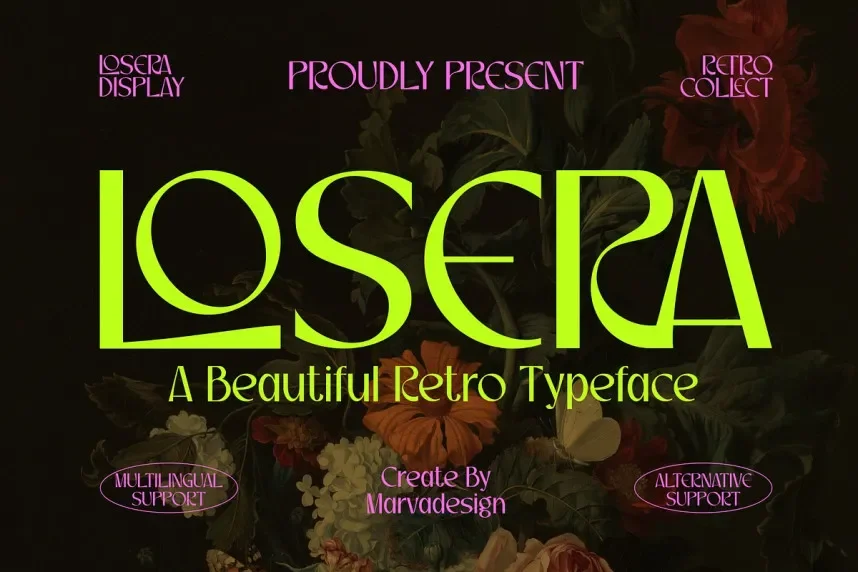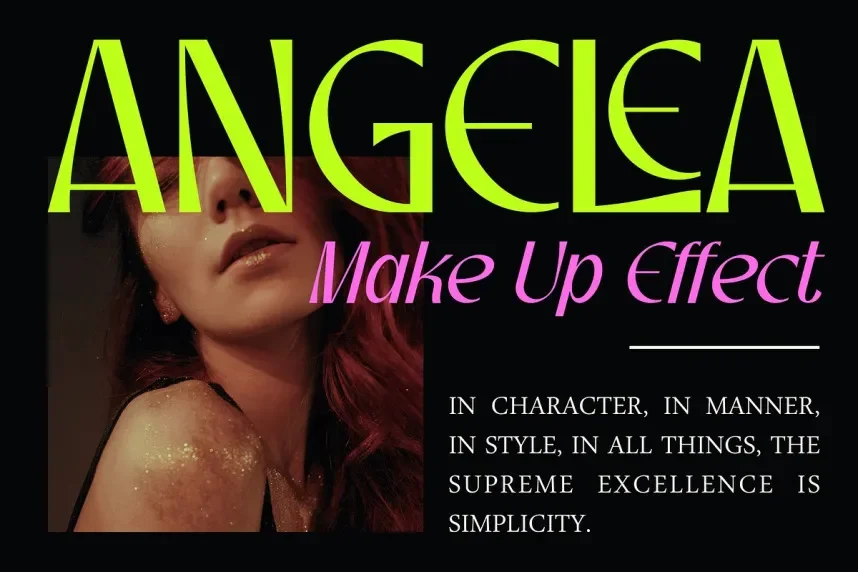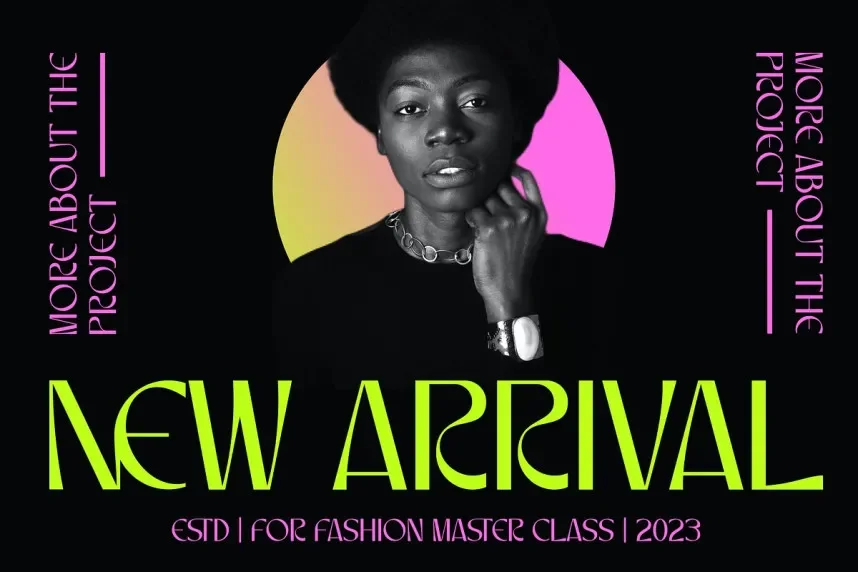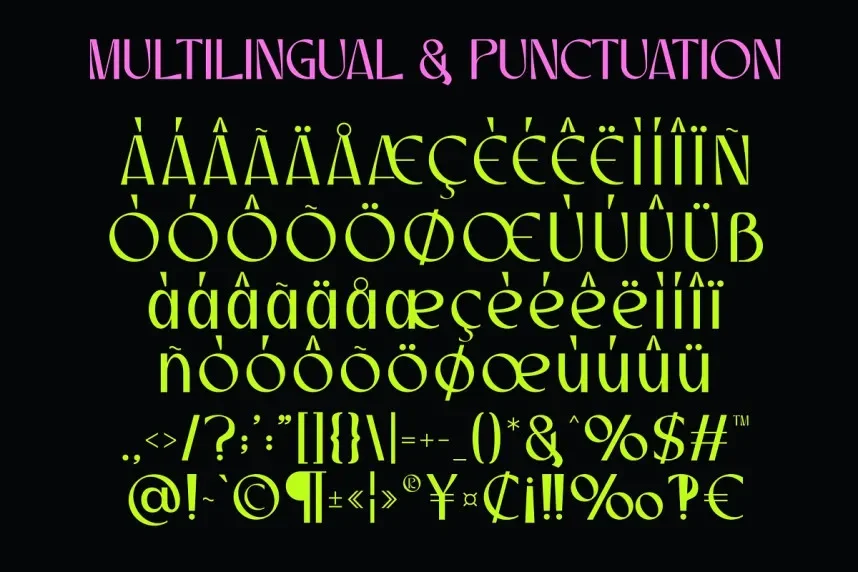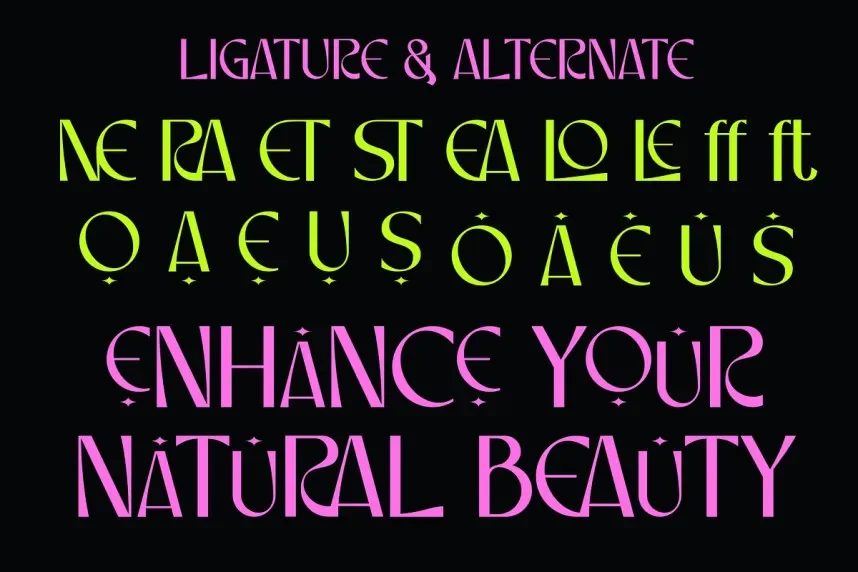
Losera Font is a script-style typeface with flowing, elegant curves and soft, organic strokes. Perfect for projects that require a personal touch, such as wedding invitations, creative branding, and logos with a handmade feel.